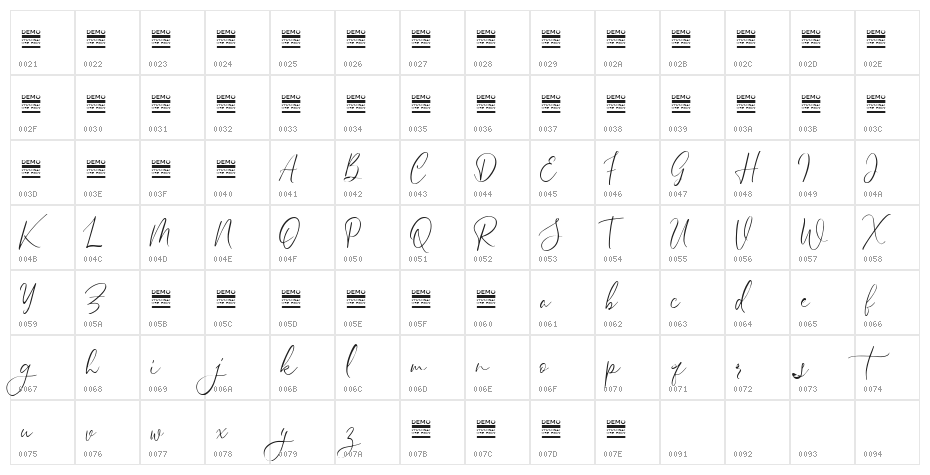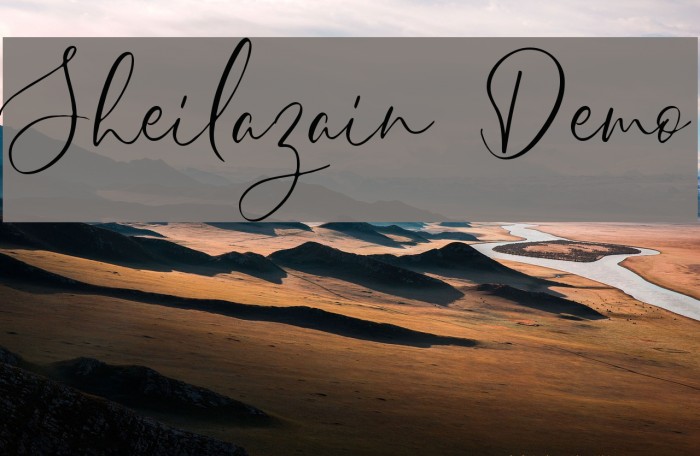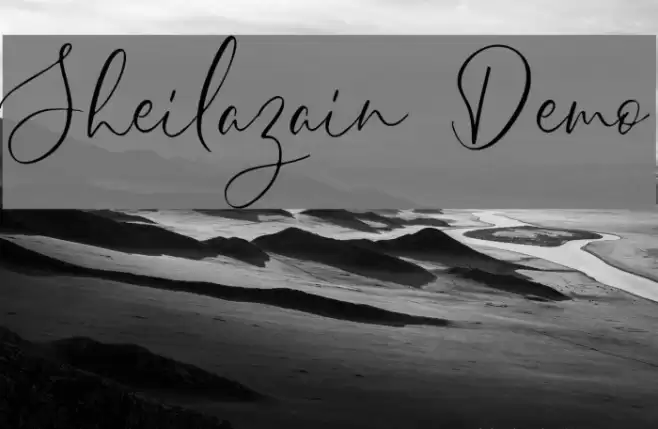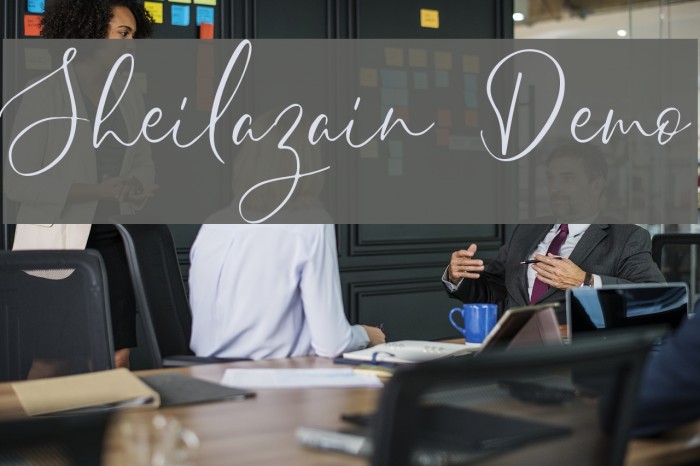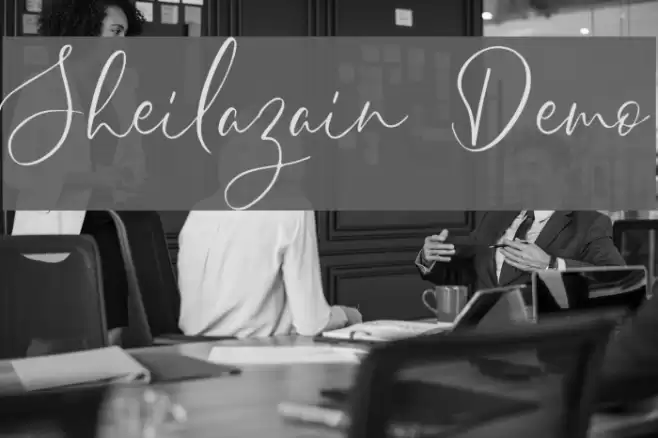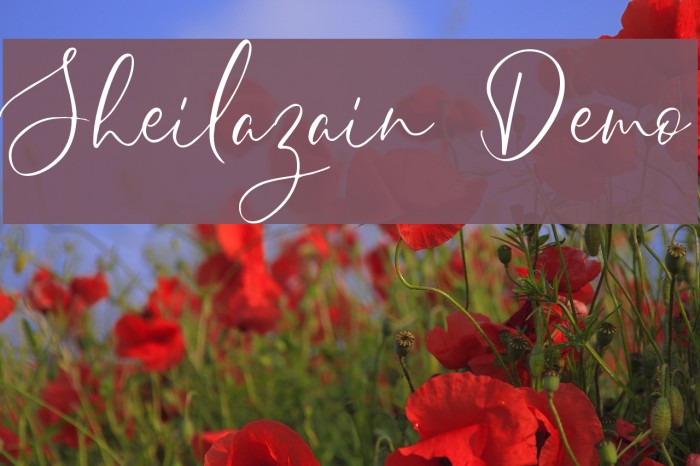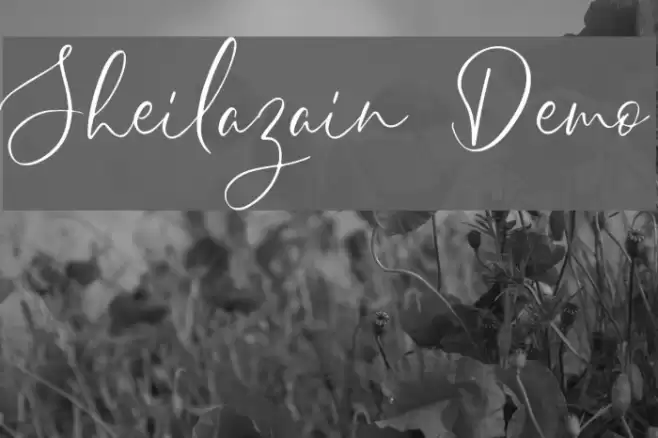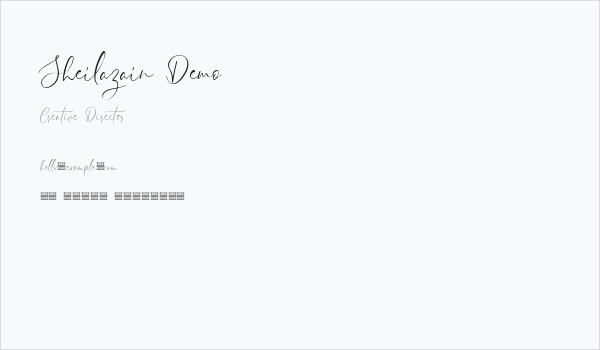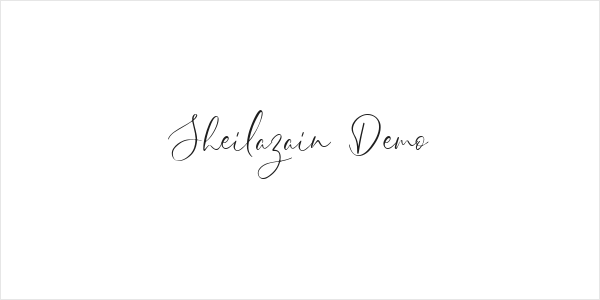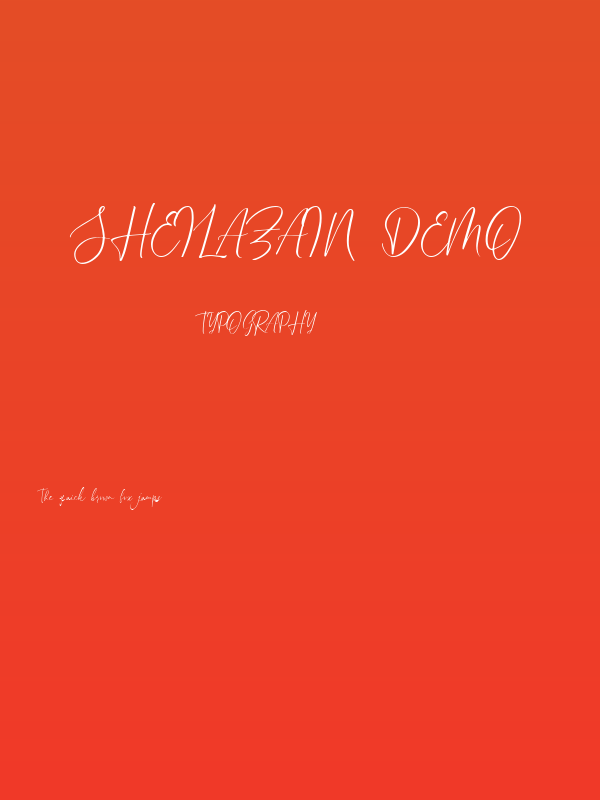
Sheilazain Demo Font
Sheilazain Demo Description
This font features an elegant and flowing script style, characterized by its smooth, cursive strokes and graceful curves. The uppercase letters are tall and slightly slanted, giving a sense of sophistication and fluidity. The lowercase letters maintain a consistent style, with some letters featuring distinctive loops and swashes that add a touch of flair. The numerals are designed to match the overall aesthetic, with a similar flowing style. Special characters are integrated seamlessly, maintaining the font's cohesive look. This font is ideal for projects that require a personal and artistic touch, such as invitations, greeting cards, and branding materials.
| Overall Style | Elegant, Artistic |
| Use Case | Headlines, Invitations, Artistic projects |
| Proposed Projects | Ideal for wedding invitations, greeting cards, branding, and artistic projects. |